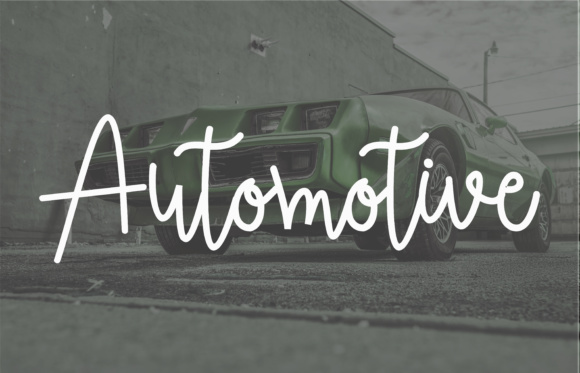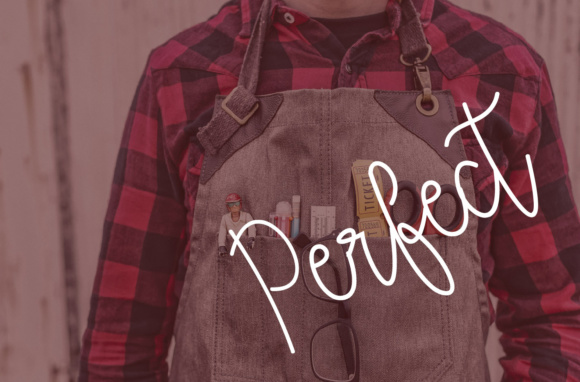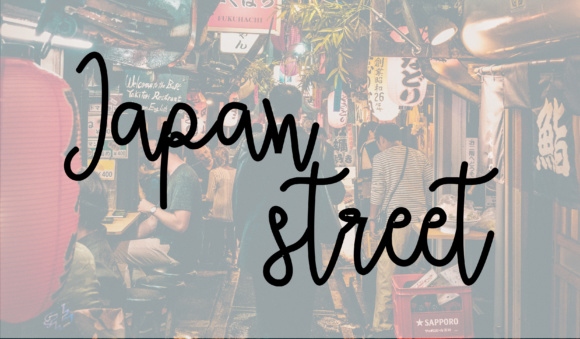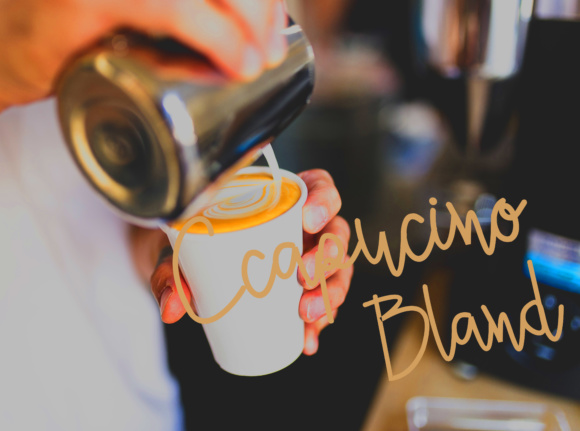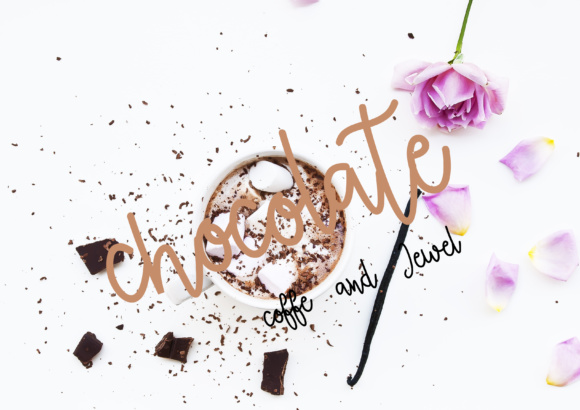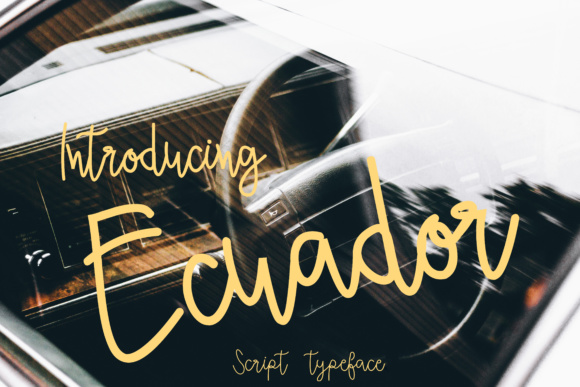
Ecuador Font: The Perfect Casual Script for Your Designs
Are you looking for a font that exudes a sense of relaxation and casual elegance? Look no further than the Ecuador Font. This beautiful script font is perfect for use in a wide range of designs, from fashion and lifestyle to travel and food blogs. With its clean yet free-form appeal, Ecuador Font is sure to add a touch of sophistication and style to your content.
What Makes Ecuador Font So Special?
Ecuador Font is a unique and versatile script font that has gained popularity among designers and crafters. Its casual and relaxed vibe makes it perfect for use in designs that require a friendly and approachable tone. The font’s clean lines and free-form appeal give it a fashionable and modern look that’s sure to capture the attention of your audience.
Key Features of Ecuador Font
- Clean and Free-Form Appeal: Ecuador Font has a clean and elegant look that’s perfect for use in designs that require a touch of sophistication.
- Casual and Relaxed Vibe: The font’s casual and relaxed vibe makes it perfect for use in designs that require a friendly and approachable tone.
- Versatile and Adaptable: Ecuador Font is perfect for use in a wide range of designs, from fashion and lifestyle to travel and food blogs.
- Easy to Read: The font’s clear and legible design makes it easy to read, even at small sizes.
Uses of Ecuador Font
Ecuador Font is a versatile font that can be used in a wide range of designs, including:
- Fashion and Lifestyle Blogs: Ecuador Font is perfect for use in fashion and lifestyle blogs, where a touch of elegance and sophistication is required.
- Travel Blogs: The font’s casual and relaxed vibe makes it perfect for use in travel blogs, where a friendly and approachable tone is required.
- Food Blogs: Ecuador Font is perfect for use in food blogs, where a clean and elegant look is required.
- Social Media Graphics: The font’s fashionable and modern look makes it perfect for use in social media graphics, where a touch of style and sophistication is required.
Tips for Using Ecuador Font
Here are some tips for using Ecuador Font in your designs:
- Use it in Headings and Titles: Ecuador Font is perfect for use in headings and titles, where a touch of elegance and sophistication is required.
- Pair it with Other Fonts: The font’s versatility makes it perfect for pairing with other fonts, such as sans-serif fonts for a modern look.
- Use it in Combination with Images: Ecuador Font looks great in combination with images, particularly those with a natural or vintage feel.
Ecuador Font is a beautiful and versatile script font that’s perfect for use in a wide range of designs. Its clean yet free-form appeal, casual and relaxed vibe, and fashionable and modern look make it a popular choice among designers and crafters. Whether you’re looking to add a touch of elegance and sophistication to your fashion blog or a friendly and approachable tone to your travel blog, Ecuador Font is the perfect choice.